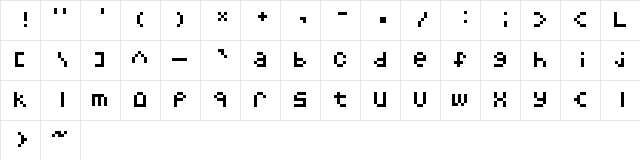
Retrocity Regular
| Designer | Elfman-Rox |
Design Context for Retrocity Typeface
Retrocity wears its vintage influences proudly, with letterforms that recall mid-century signage, classic packaging, and nostalgia-driven design.
Font Pairing: Combine Retrocity with a simple slab or neutral sans — period-accurate companions reinforce the vintage feel without competing for attention.
Pro Tip: Lean into Retrocity's period character by pairing it with aged paper textures, muted colour palettes, and vintage illustration styles.